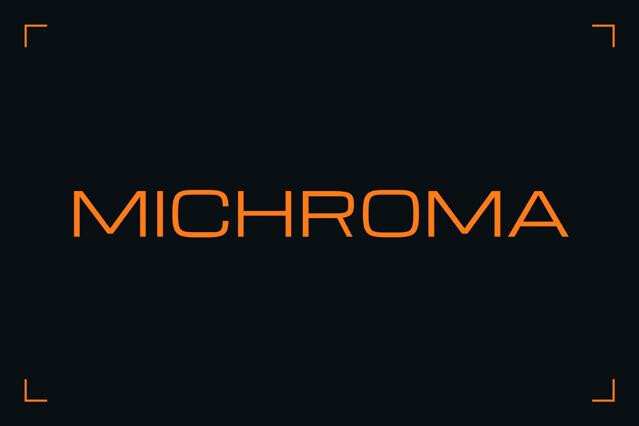
Space Fonts
Space fonts pull in two directions: the sleek aerospace forms and retro NASA-era geometry of the real program, and the futuristic display type of an imagined hull. The collection spans geometric astronautic sans, retro space faces dating from the 60s to the 90s, space-arcade faces, sci-fi and alien displays.
Space fonts for cosmic, astronautic, and exploration-themed design
Space fonts reach for the stars — literally. Whether they channel the optimistic geometry of mid-century mission patches or the atmospheric drama of deep space, they bring wonder and exploration to a design.
We've gathered the fonts that make a layout feel ready for launch. The collection covers every aspect of the futuristic spectrum: sleek astronautic sans, cosmic display, and starry decorative type, all suited to science branding, events, gaming, and editorial reaching for the cosmos.
Where cosmic fonts take off
Space fonts carry the pull of the unknown — and that's what makes them so useful when a project needs to feel bigger than itself. The look does its best work whenever a brand wants to suggest vision, advanced thinking, or hopefulness about what's ahead. It's why their aesthetic reaches well beyond literal astronomy into anything aspirational:
- Astronomy, planetarium, and science communication.
- Sci-fi-adjacent games, films, and apps.
- Music covers with ambient, electronic, or dreamy moods.
- Tech and aerospace branding that wants a sense of scale.
- Posters, prints, and merch about the cosmos.
The styles we've gathered
Two instincts pull at space type, and a project always wants one more than the other: the cool precision of engineering, or the romantic awe of the cosmos. One says "we know exactly what we're doing"; the other says "imagine what's possible":
- Aerospace sans — clean, weightless geometry with the institutional calm of the real space program. It's the register of NASA's custom "worm" logotype, whose rounded, crossbar-less A reads as a rocket nose, and of the Futura that rode the Apollo 11 plaque to the Moon.
- Cosmic display — glowing, starry, atmospheric headline forms in the lineage of airbrushed 70s and 80s sci-fi paperback covers and the dreamy sleeves of space-age and prog-rock records.
- Retro-futuristic — mid-century space-age optimism in letterform, led by Eurostile and its predecessor Microgramma: the squared, wide font that has meant "the future" on screen for decades, from the HAL interface in 2001: A Space Odyssey to Star Trek's ship hulls and the world of WALL-E.
- Galactic decorative — ornate, otherworldly type for fantasy and gaming, the bespoke franchise-titling tradition of key art like the custom Star Wars logo and the ITC Serif Gothic of its opening crawl.
Space fonts evoke real and imagined cosmic exploration — astronautics, planets, the stars; sci-fi leans into fictional, often dystopian future worlds; tech fonts read as present-day digital and engineering. Space is the most romantic and exploratory of the three; the boundaries blur, but the mood differs.
Some decorative ones do (e.g., built-in stars, glows, or textured cosmic detailing), while many are clean geometric forms you theme with color and imagery. Check whether the effect is in the font or up to you to add.
Science and astronomy branding, planetariums and museums, space-themed events and games, and sci-fi-adjacent editorial.
The simpler geometric space sans can handle short to medium text, but the most stylized display fonts are headline-only. Pair a themed display font with a clean neutral one for longer reading.
Lean on restraint and one strong idea: a single sleek font with generous space around it reads as considered, while piling on stars, glows, and chrome at once tips into kitsch.